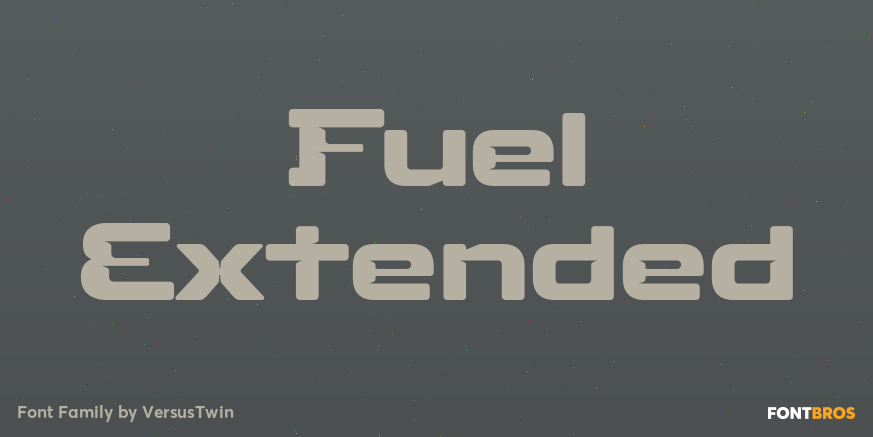
Fuel Extended
About Fuel Extended
The Fuel Extended typefaces are a modern update on the techno sans extended for stronger impact, complete with soft rounded corners as well as decorative inktraps. Stylistic Alternates included within all styles are alternates for the capital B, E, G,…